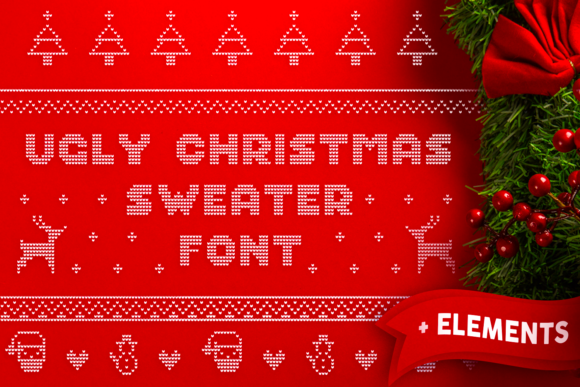
Looking for the perfect font to make your Christmas cards stand out from the crowd? Look no further than Ugly Christmas Sweater Font! Created by the talented Anastasia Feya, this decorative font is specifically designed to add a touch of festive magic to your holiday greetings.
Ugly Christmas Sweater Font is crafted with utmost care, using minimal points to guarantee outstanding results with minimal effort. This means that even if you're not a design expert, you can still create stunning Christmas cards that will leave a lasting impression on your loved ones.
With its unique and eye-catching style, Ugly Christmas Sweater Font transforms each letter into a miniature work of art. The playful curves and intricate details of this font evoke feelings of joy, nostalgia, and the warmth of the holiday season. It's like wrapping your words in a cozy, festive sweater!
But this font is not just about aesthetics. It's also highly versatile, allowing you to express your creativity in various ways. Whether you want to create personalized labels for your Christmas gifts, design captivating social media posts, or craft engaging holiday banners, Ugly Christmas Sweater Font has got you covered.
Imagine the delight on your recipients' faces when they receive a Christmas card adorned with this whimsical font. It instantly adds a touch of magic and makes your message unforgettable. From traditional holiday greetings to quirky and fun expressions, Ugly Christmas Sweater Font brings your words to life in a way that captivates hearts and spreads holiday cheer.
Don't settle for ordinary fonts when you can have Ugly Christmas Sweater Font to make your Christmas cards truly extraordinary. Let your creativity soar and create personalized, heartfelt messages that will warm the hearts of your loved ones. Spread the joy and magic of the holiday season with every stroke of this remarkable font.